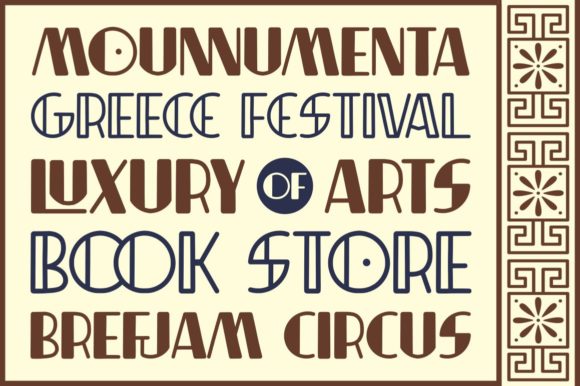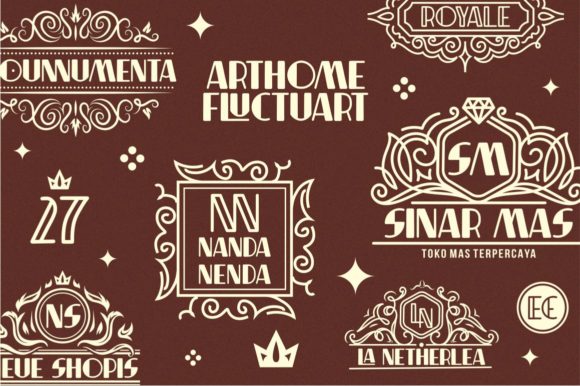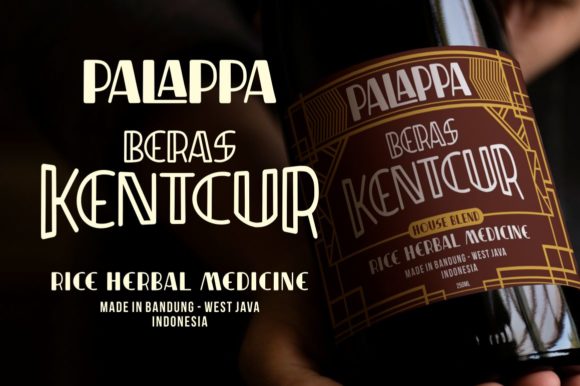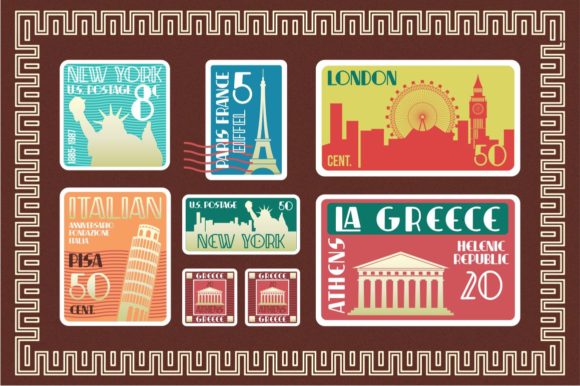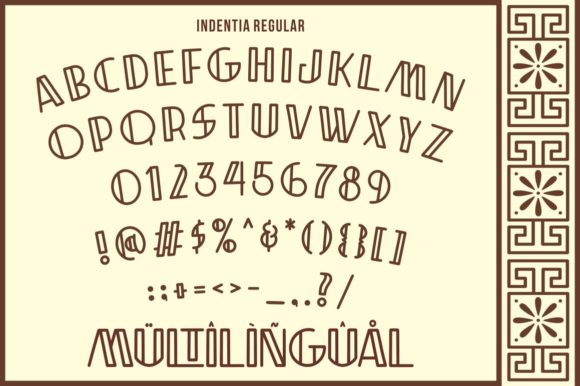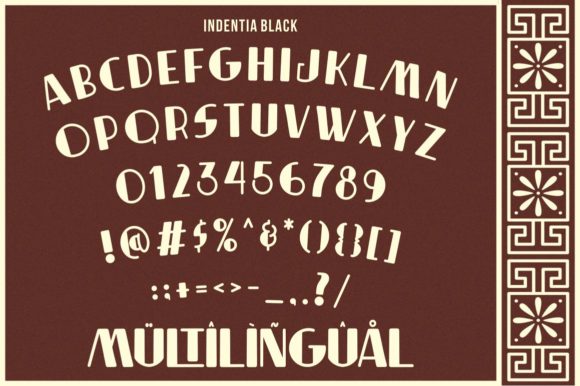
The Perfect Blend of Art Deco Elegance and Creativity
Have you ever been rummaging through your design archives, searching for that one font that sparks inspiration and sets your creative juices flowing? For designers, finding the perfect font can be a game-changer. It’s like stumbling upon a hidden treasure trove of ideas, just waiting to be unleashed.
Enter the stunning Indentia Font, a beautiful decorative font that embodies the essence of Art Deco style. With its meticulous lines and unique ligature features, this font is the perfect addition to any graphic design project. Whether you’re working on a logo, poster, or packaging design, the Indentia Font is sure to elevate your work to new heights.
Indentia Font Key Features
- Font Family: Indentia Font is a sans-serif font family designed for body text and titles.
- Font Size and Resolution: Designed to be used at various sizes, from 10pt to 24pt, with optimal readability at 12pt and 72 dpi.
- Unique Characteristics: Indentia Font features a unique combination of geometric and organic elements, resulting in a clean and modern aesthetic.
- X-Height and Line Spacing: Optimized x-height and line spacing for improved readability and a consistent visual flow.
Designer Review: Indentia Font
Overall, I think Indentia Font is a solid addition to any design toolkit. ✨ Its unique blend of modern and vintage elements makes it perfect for projects that require a touch of sophistication and elegance. ✨ The font’s clean lines, balanced proportions, and harmonious letterforms create a sense of cohesion and visual flow that’s hard to resist.
One of the standout features of Indentia Font is its versatility. ✨ It can be used for a wide range of applications, from body text to headings, and even for logos and branding materials. The font’s flexibility makes it an excellent choice for designers who need a reliable workhorse that can handle multiple tasks.
What Doesn’t Work So Well ⚠️
- At small font sizes, Indentia Font can appear a bit blurry and pixelated, which may affect readability.
- The font’s uppercase letters can sometimes feel a bit too condensed, making them difficult to distinguish from each other.
Despite these limitations, I still think Indentia Font is a great choice for designers who value elegance and sophistication in their work. With a bit of tweaking and adjustments, this font can become a valuable asset in any design project.
Tips for Getting the Most Out of Indentia Font
Use Indentia font to create a unique and modern look in your designs. Experiment with different font sizes, colors, and combinations to find the perfect balance. You can also use Indentia font for headings, titles, and emphasis to add visual interest.
Indentia font is perfect for modern designs, such as:
- Marketing materials (brochures, flyers, posters)
- Infographics and data visualization
Alternatives to Indentia Font
Lato Font is a clean and modern sans-serif typeface designed by Łukasz Dziedzic. It’s ideal for use in digital products, magazines, and websites where a friendly and approachable tone is required. Lato Font has a more rounded feel compared to Indentia Font, making it a great choice for applications that require a softer touch.
Montserrat Font is a sans-serif typeface inspired by the urban environment of Buenos Aires. It’s perfect for use in modern and minimalist designs, such as logos, branding, and editorial content. Montserrat Font has a more geometric feel compared to Indentia Font, making it a great choice for applications that require a strong and edgy tone.
Open Sans Font is a modern sans-serif typeface designed by Steve Matteson. It’s ideal for use in digital products, websites, and mobile applications where a clean and readable tone is required. Open Sans Font has a more neutral feel compared to Indentia Font, making it a great choice for applications that require a versatile and approachable tone.
The recommended font size and line height for optimal readability with the Indentia Font are as follows:
- Font size: 12-14 points for body text, 18-24 points for headings.
- Line height: 1.2-1.5 times the font size.
These recommendations are based on